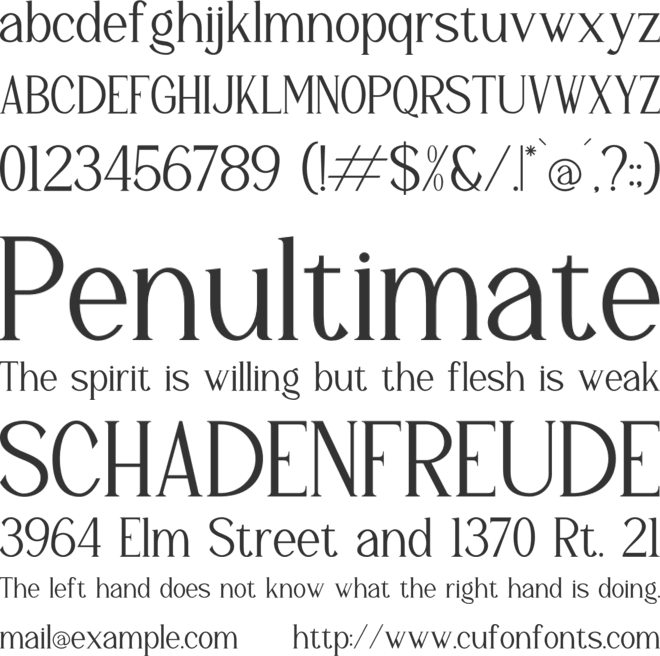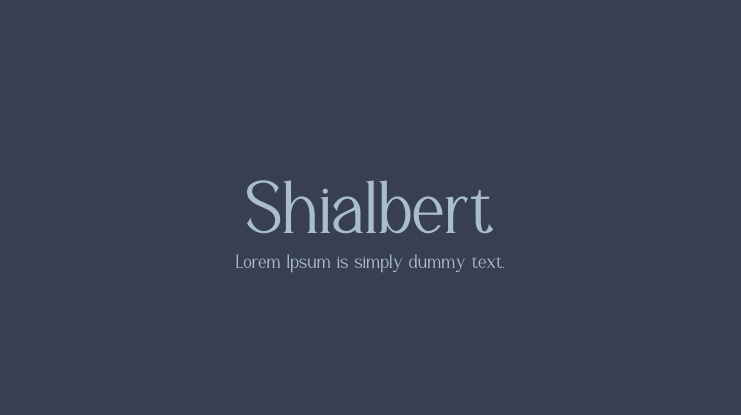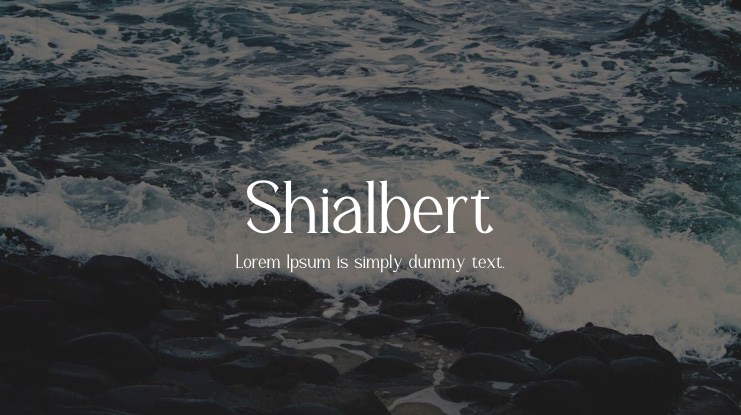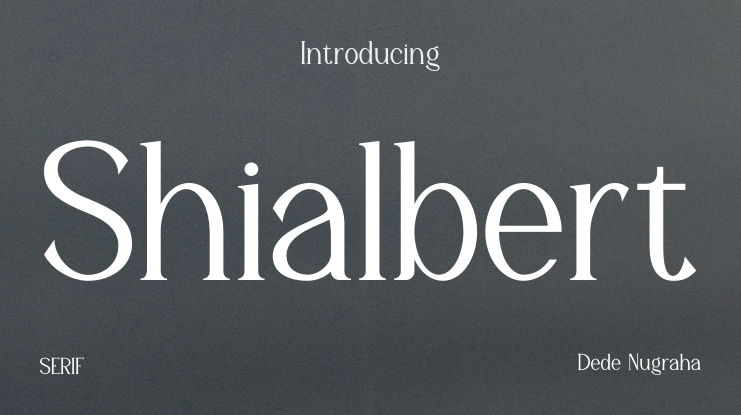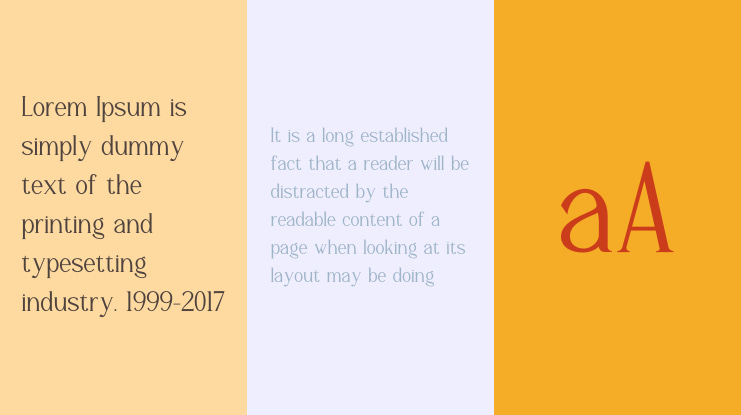
Shialbert Font
Shialbert | Modern Serif is a versatile font suitable for various projects such as logos, branding, homeware designs, product packaging, quotes, posters, t-shirts, book covers, and more. By using this font, you agree to the following terms: